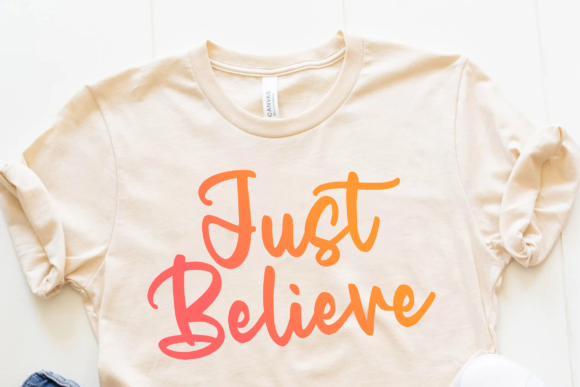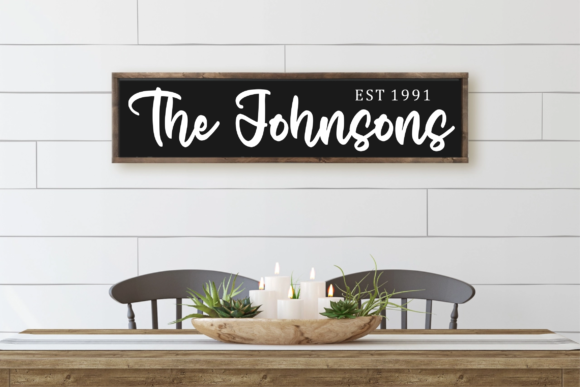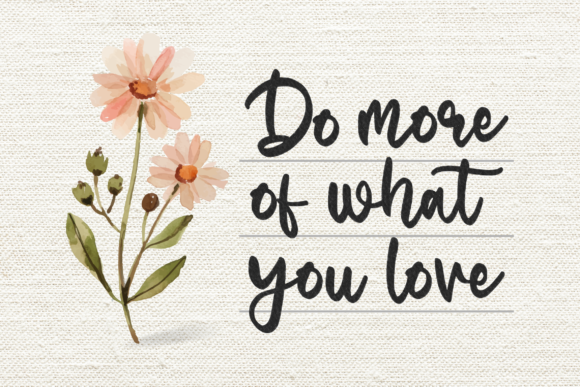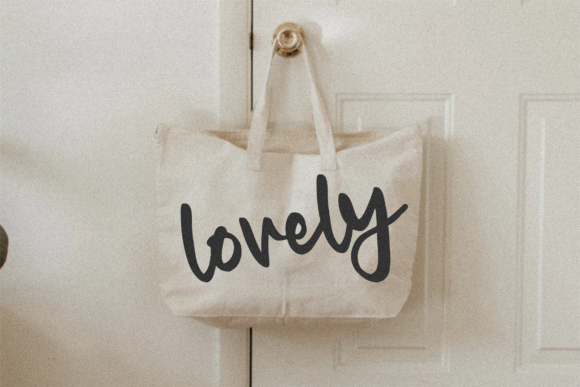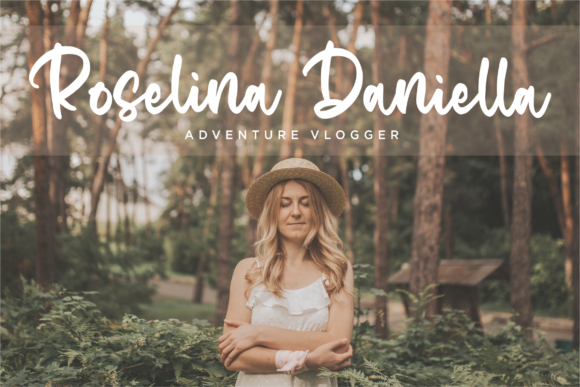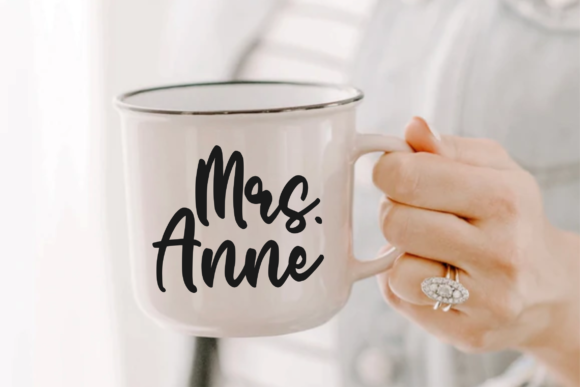
Introduction to Hillgoldie Font Font
Fonts play a crucial role in design, and the Hillgoldie Font font is a typeface that brings both character and versatility to any project. Whether you’re working on a branding project, a website, or a print design, the Hillgoldie Font font offers a unique style that can elevate your work.
Hillgoldie is a clean and paint brushed handwritten font.
It is perfect for product packaging, branding project, magazine covers, social media posts, wedding invitations, or just used to express words above the background .
Key Features of Hillgoldie Font Font
Why Choose Hillgoldie Font Font?
The Hillgoldie Font font is more than just a typeface – it’s a design tool that helps you communicate your message with style and clarity. Its unique character set and versatile design make it suitable for a wide range of applications, from elegant invitations to bold headlines.
With its carefully crafted letterforms and balanced proportions, the Hillgoldie Font font ensures readability and visual appeal across all mediums.
What makes Hillgoldie Font font special?
The Hillgoldie Font font stands out with its unique design, exceptional readability, and versatility across various design applications.